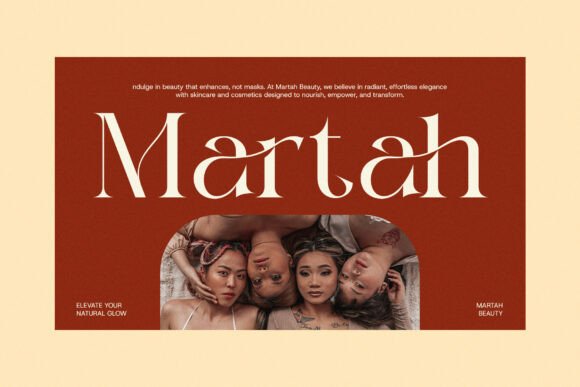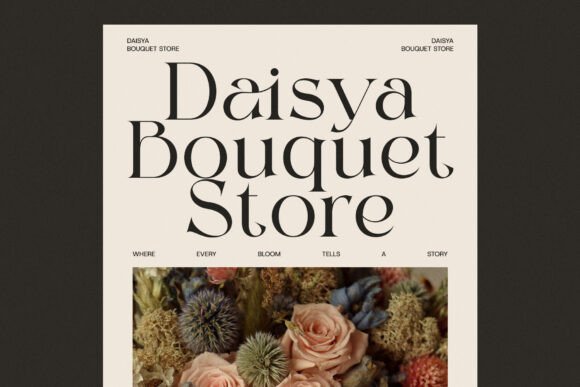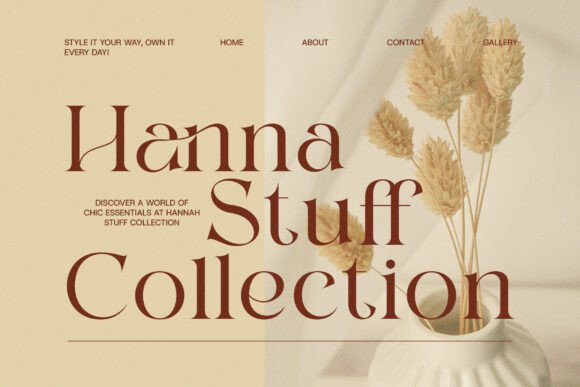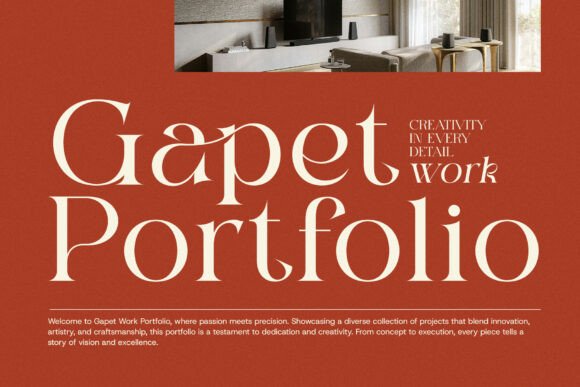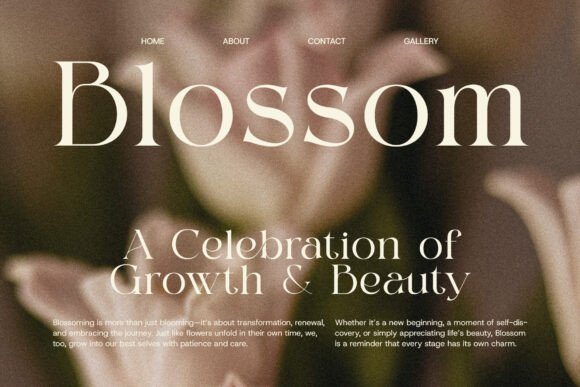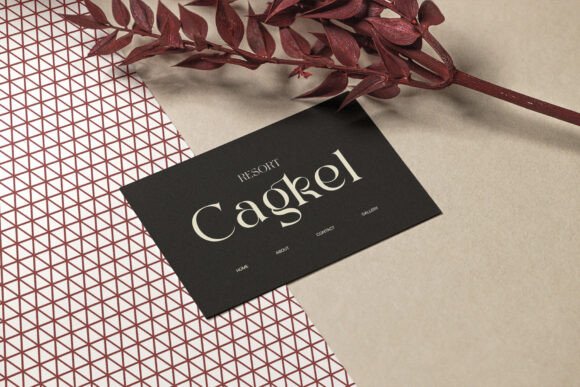
Introduction to Saillen Font
Have you ever stared at a blank canvas, eager to bring a creative project to life, only to be overwhelmed by the endless options of typography? It’s a familiar feeling for many designers. But what if you had a trusted companion, a font that effortlessly elevates your work and adds a touch of sophistication to every design? Enter Saillen Font, the perfect solution for designers seeking to create stunning, high-quality visual identities.
As a valuable design resource, Saillen Font offers a unique blend of elegance and versatility, making it an ideal choice for a wide range of applications, from luxury branding to modern packaging and minimalist design. With its clean lines, soft curves, and subtle contrast, Saillen Font provides a polished, editorial look that’s sure to impress.
Key Features of Saillen Font
- Features a unique, hand-drawn style with a transparent background
- Supports a wide range of languages, making it a versatile design tool
- Perfect for designers and artists working on creative projects, from logos to graphics
Honest Review: Saillen Font
- ✨ Elegant and modern aesthetic: The Saillen Font has a sleek, sophisticated look that’s perfect for a variety of design projects.
- ✨ Clear and readable: The font is highly legible, even at small sizes, making it ideal for body text or titles.
- ✨ Versatile: The Saillen Font can be used for both digital and print projects, offering a lot of flexibility for designers.
- ⚠️ Limited language support: The Saillen Font primarily supports Latin-based languages, which might be a limitation for designers working with languages that use non-Latin scripts.
- ⚠️ Not ideal for logotypes: While the font is great for body text and titles, it may not be the best choice for logotypes or branding due to its simplicity.
Overall, the Saillen Font is a solid addition to any designer’s toolkit. Its high quality and elegant design make it a great resource for creative projects. However, it’s essential to be aware of its limitations, especially when working with languages that require more complex typography.
Tips for Getting the Most Out of the Saillen Font
The Saillen Font is a versatile design resource that can be used in a variety of creative projects, including social media graphics, presentations, and documents. It’s a great resource for anyone looking for a high-quality, transparent background font that’s easy to use and customize.